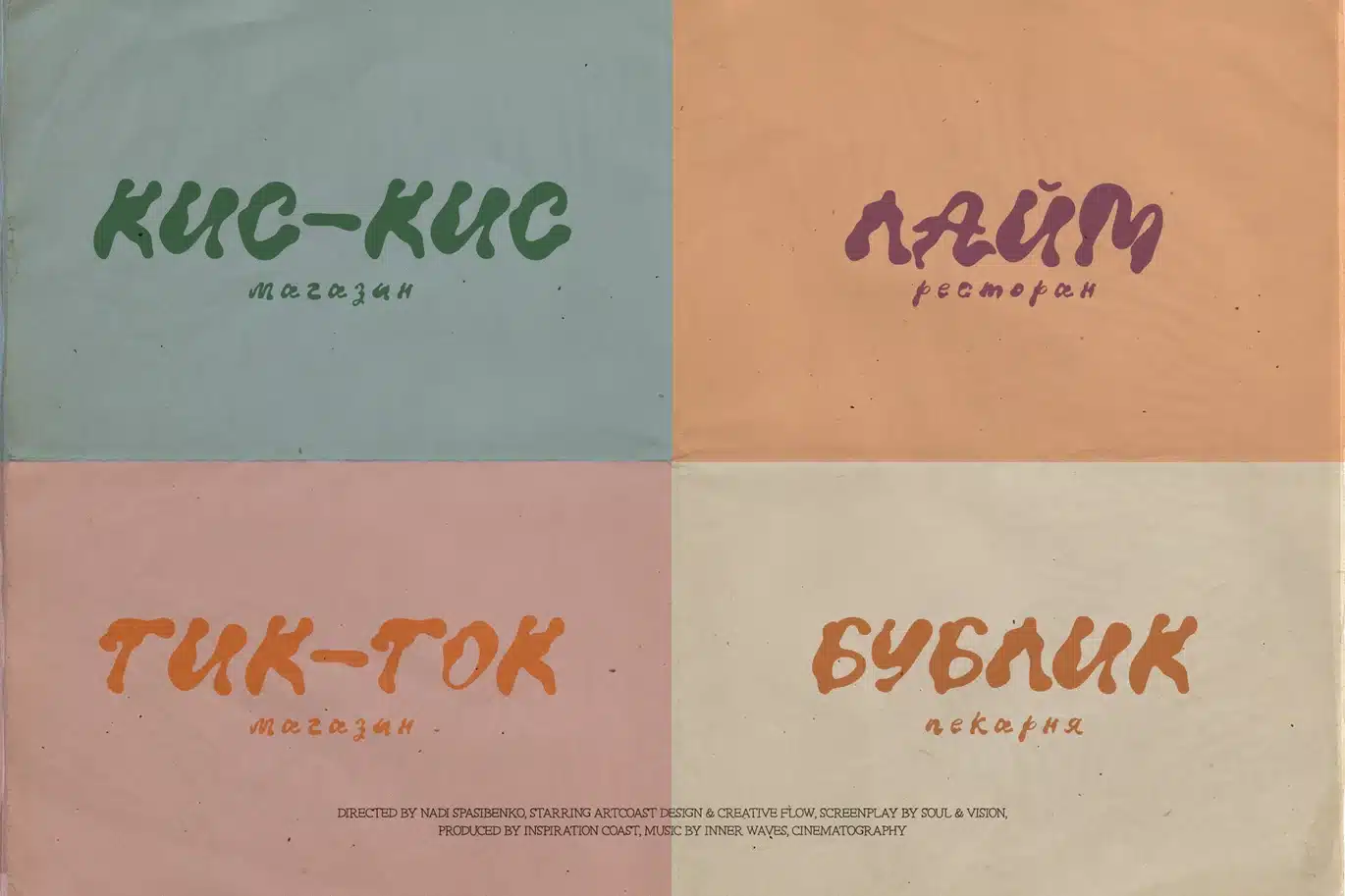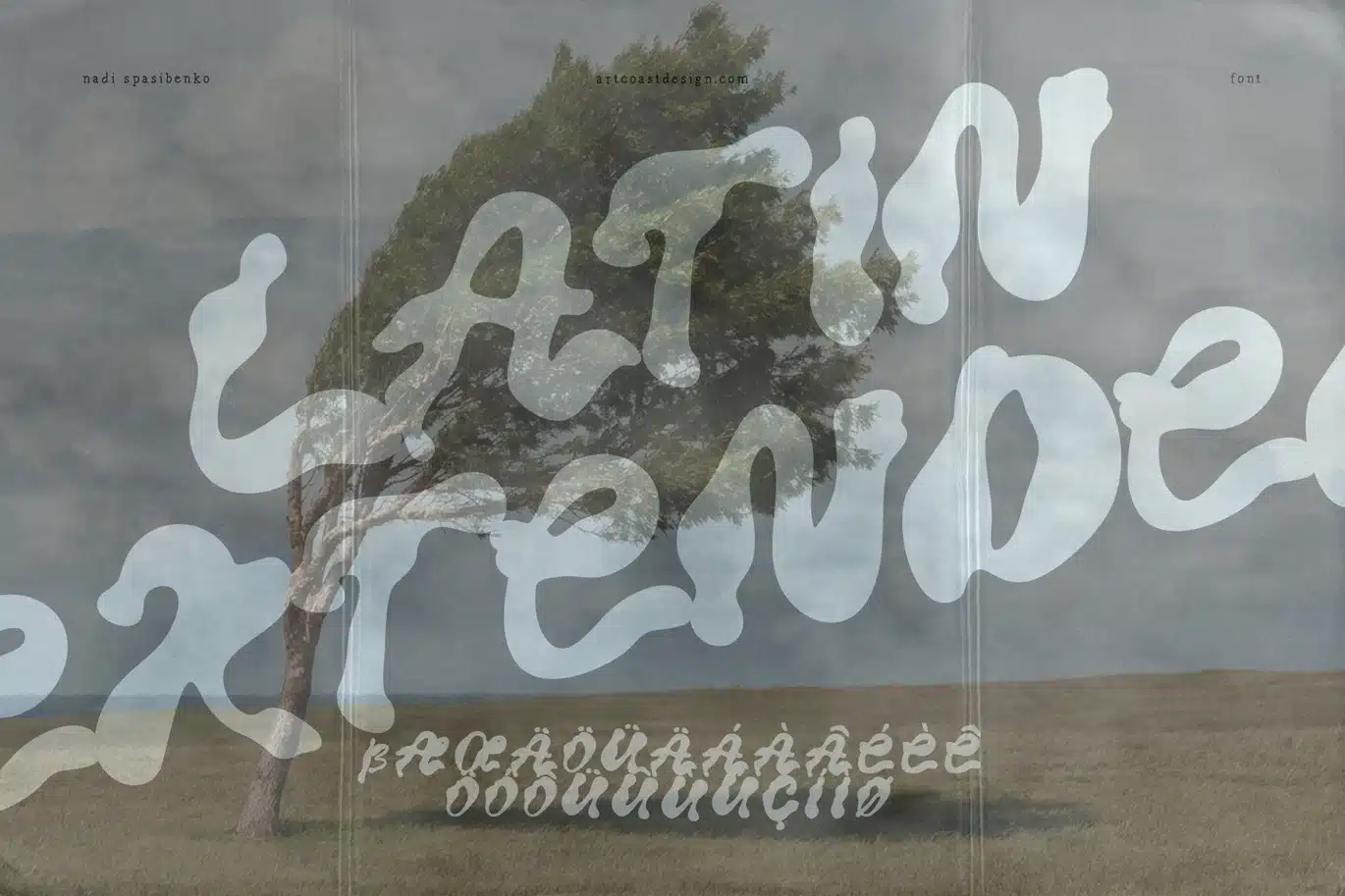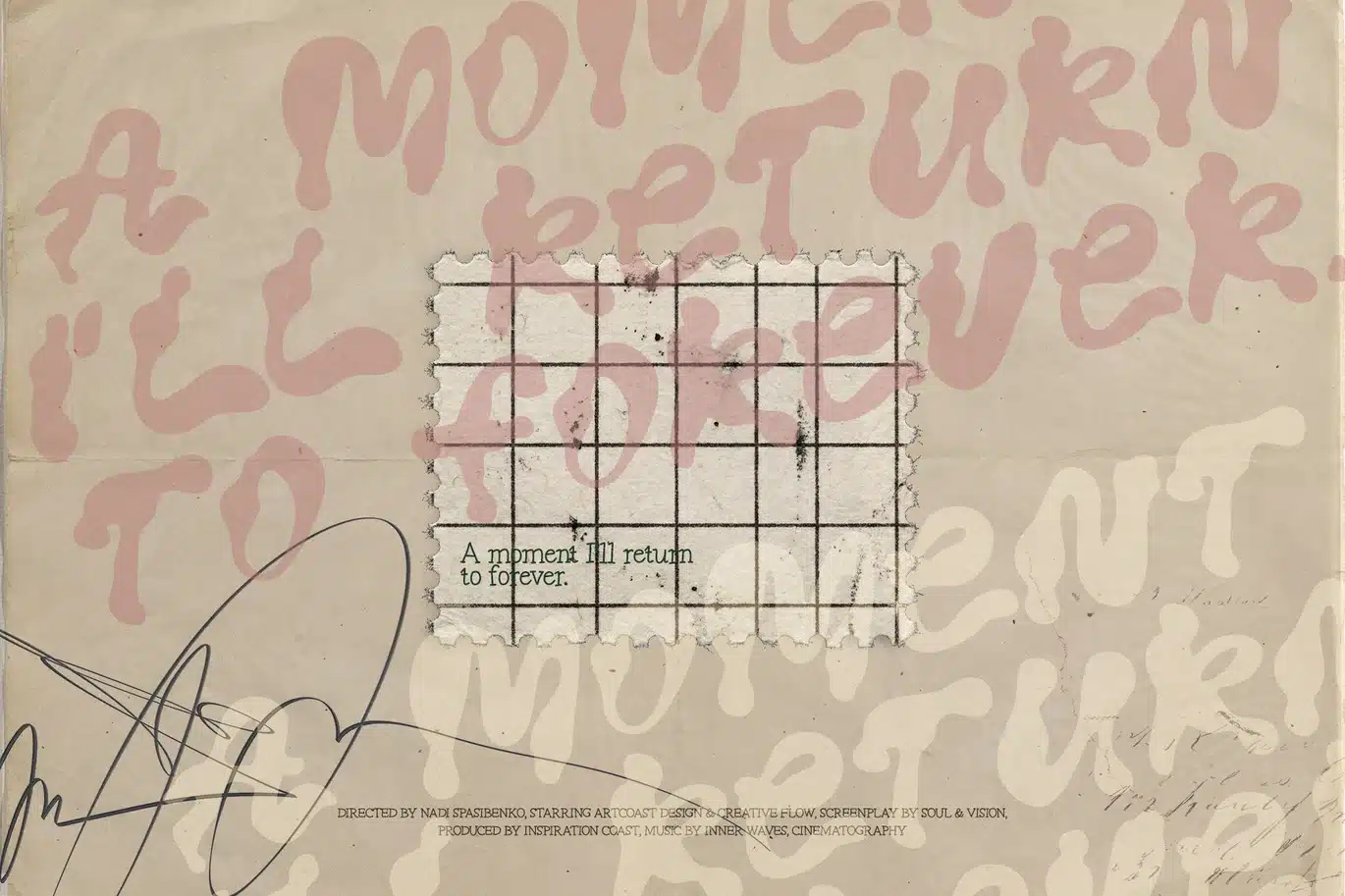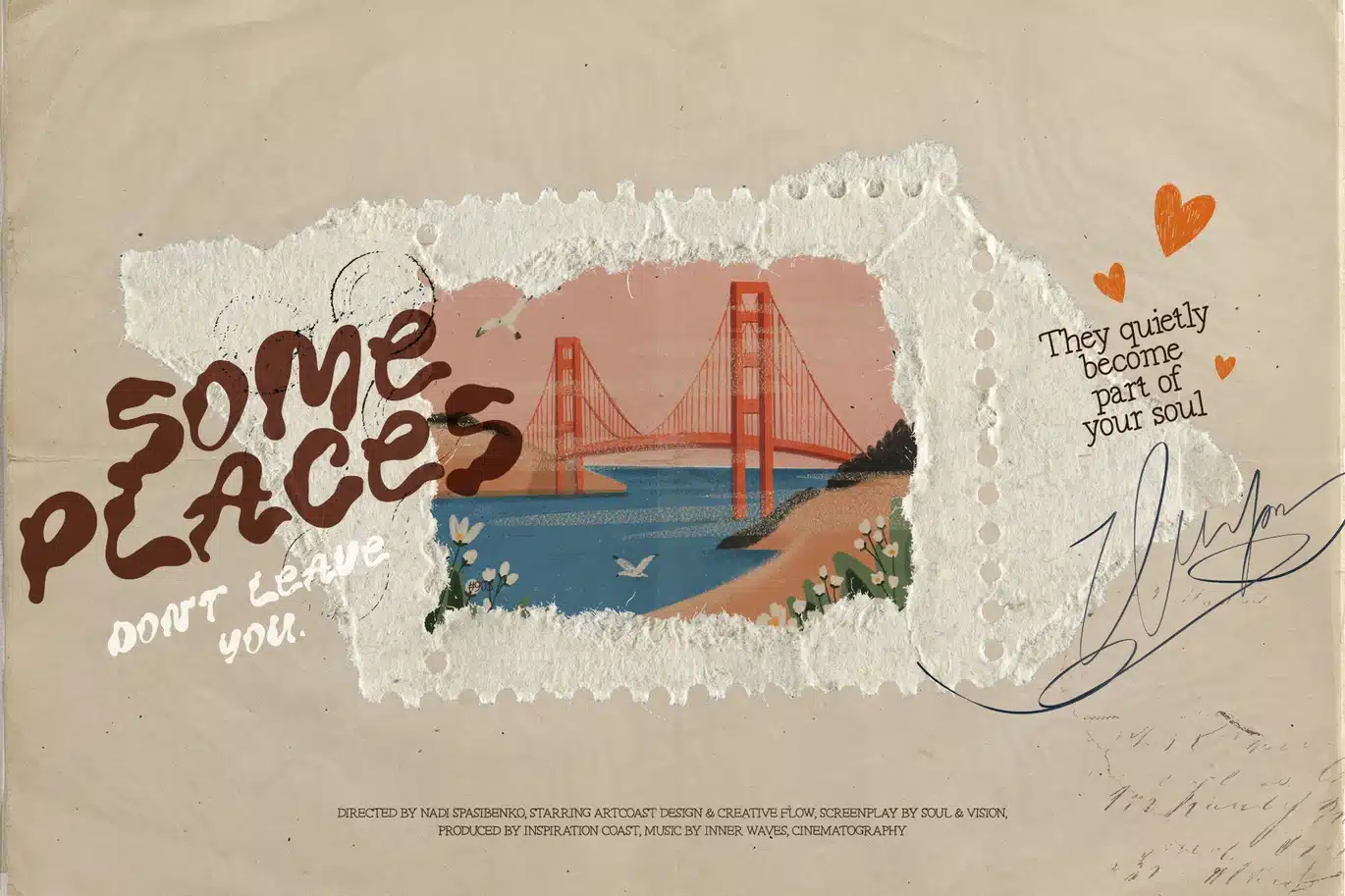
Morpha – Organic Blob Typeface Font
MORPHA — Organic Blob Font with Fluid Shape
Morpha is a modern blob-style font featuring soft, flowing curves and organic, fluid letterforms. Each character feels naturally shaped, almost melted, creating a smooth “liquid typography” effect that aligns perfectly with current design trends.
This font balances playful expression with strong visual structure — it has the charm of hand-drawn lettering while maintaining excellent readability and composition.
Perfect for projects that need emotion, personality, and a bold visual identity: — branding — packaging (especially food, dessert, lifestyle) — posters & covers — social media content — merch & creative projects
Full Latin + Cyrillic support
Extended European characters
Numbers & basic punctuation
Unique blob-style letterforms (soft, rounded, flowing)
“Liquid / melted” typography effect
Best used in large display sizes
Style: Organic • Fluid • Playful • Trendy • Soft Bold
Morpha is more than a font — it’s a mood: warm, expressive, slightly nostalgic, yet distinctly modern.